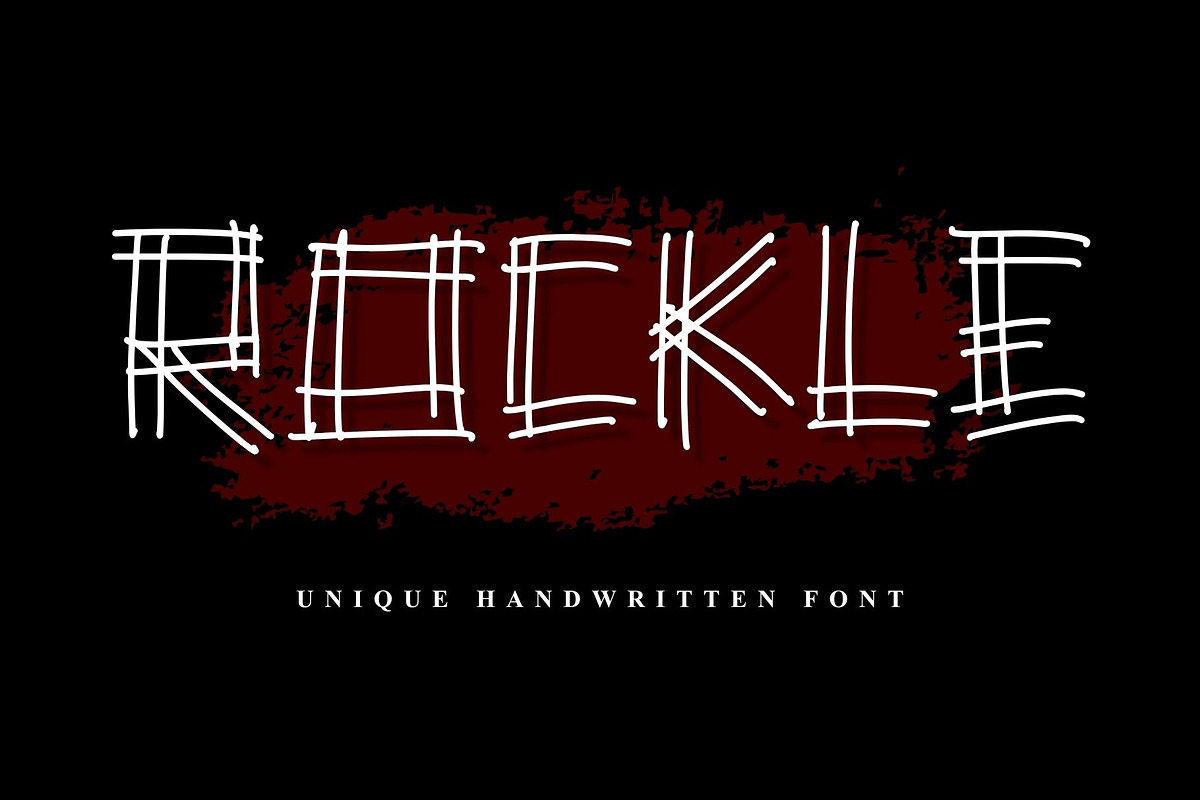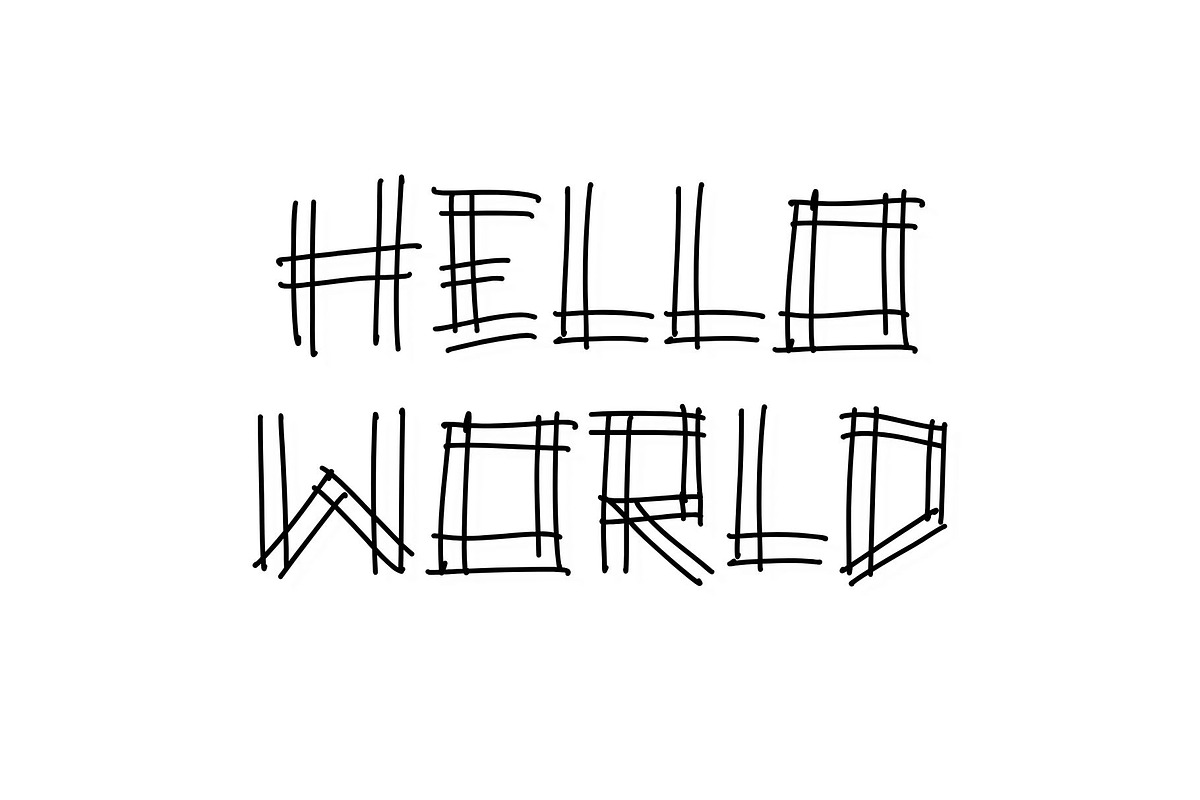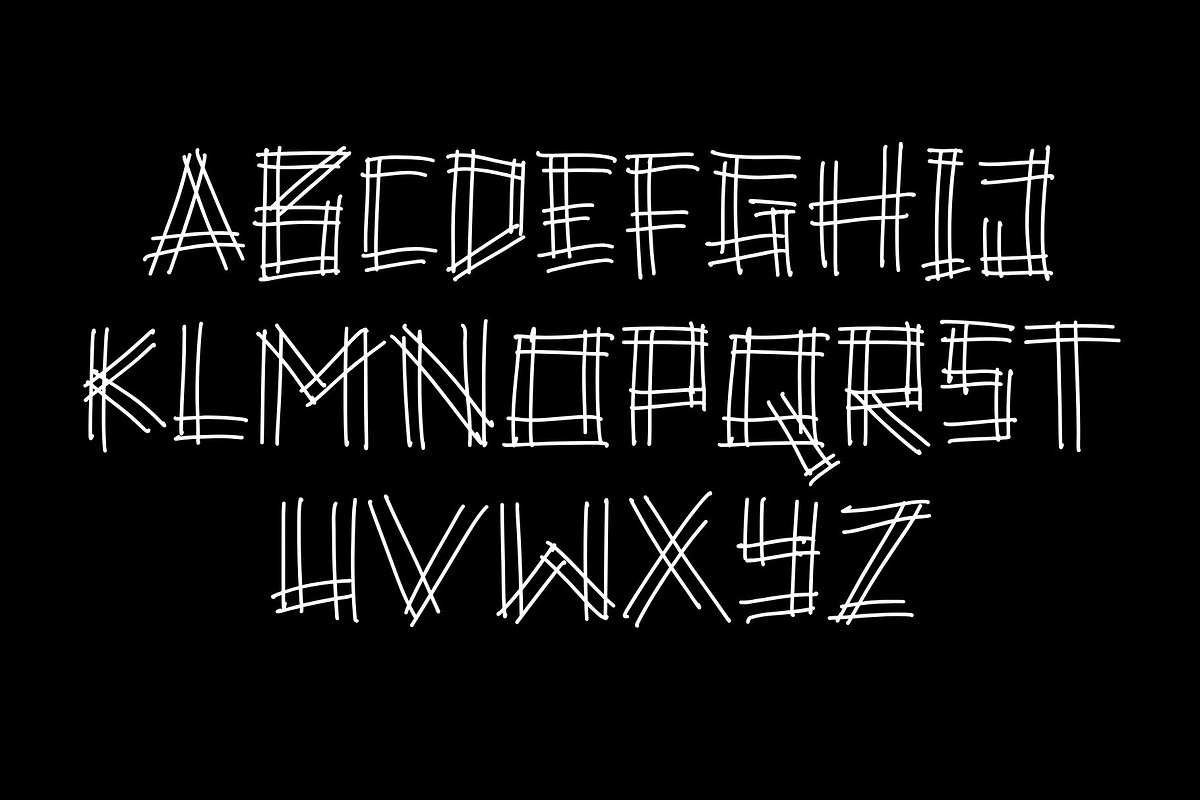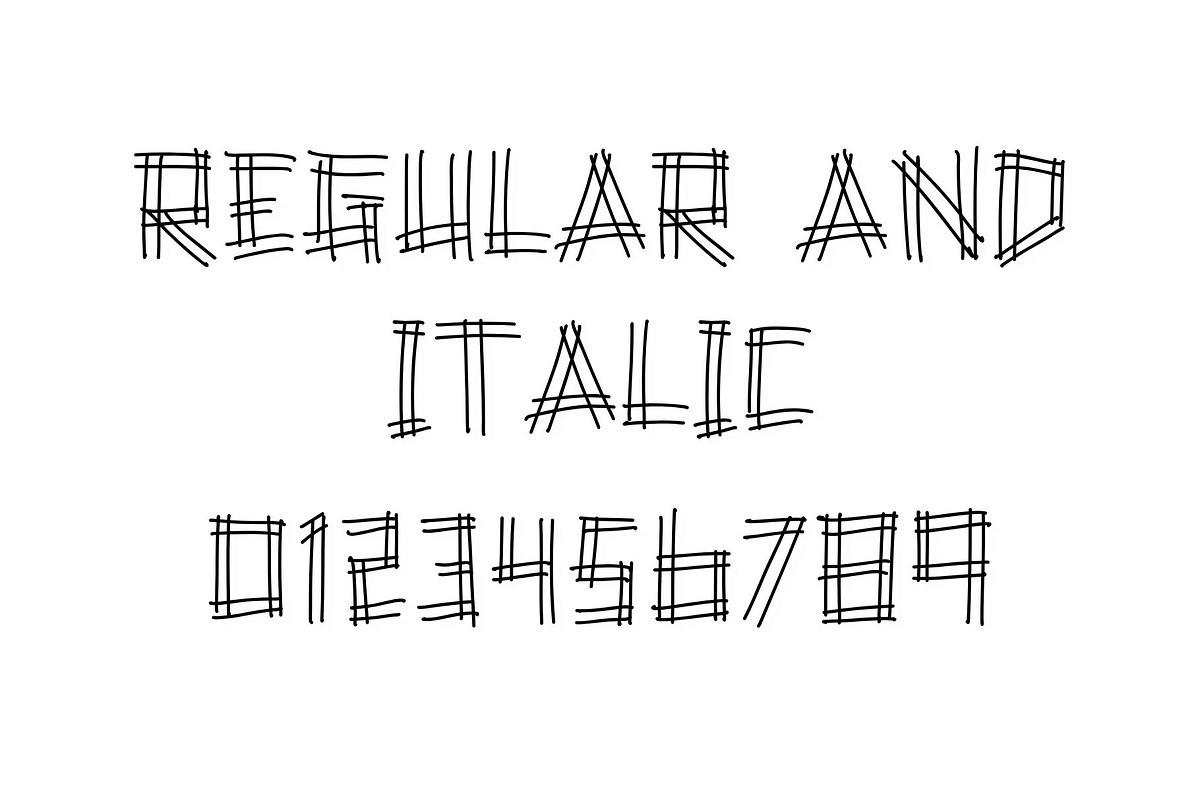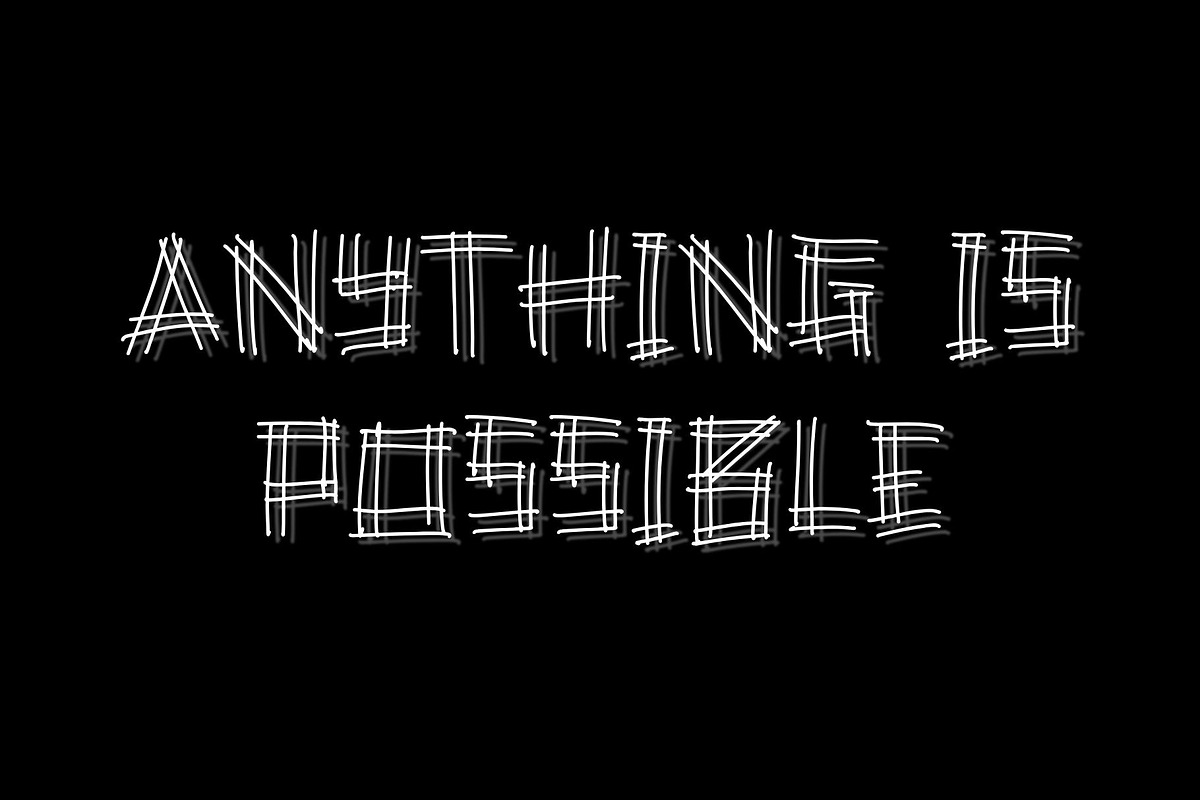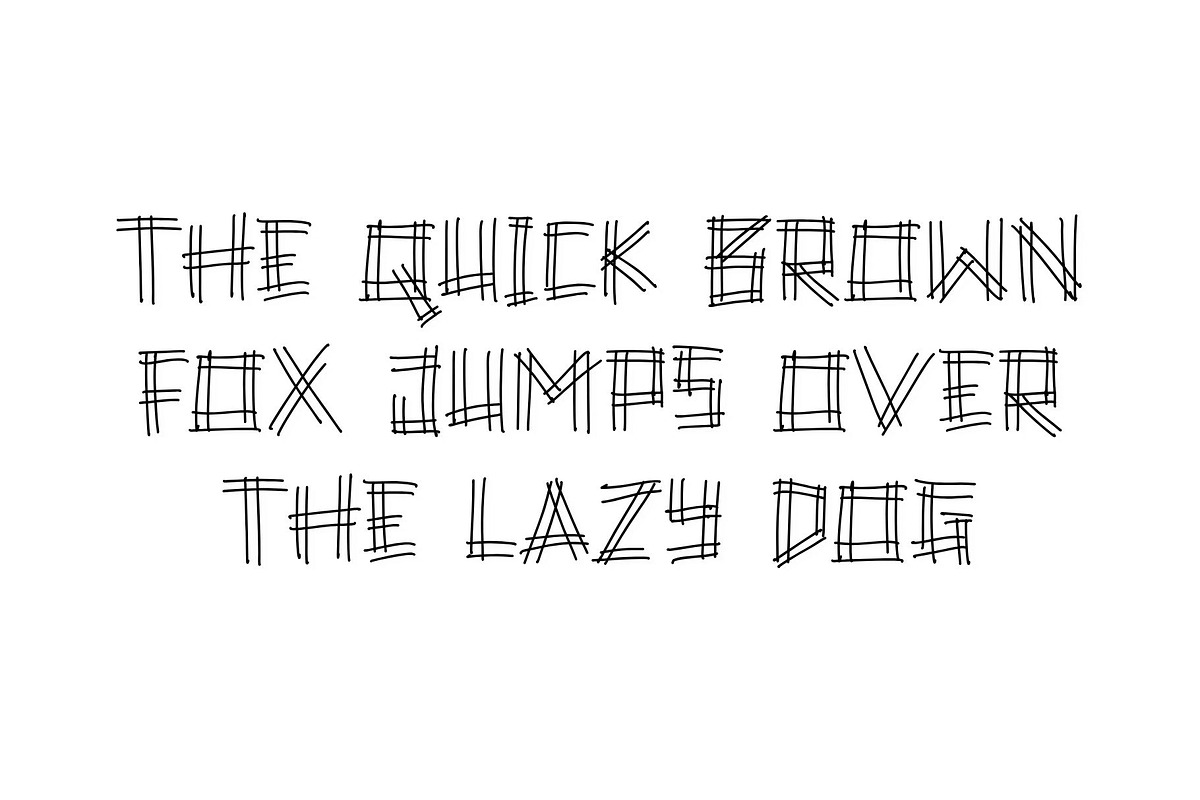
Rockle
ROCKLE is a bold and expressive handwritten font that captures a raw, edgy, and artistic feel. Designed with irregular strokes and a sketch-like structure, this font brings a unique personality that stands out in any design. Its rough, hand-drawn appearance makes it perfect for creative projects such as posters, album covers, branding, and social media visuals. ROCKLE delivers a strong visual impact while maintaining a modern and unconventional style, making your text feel more alive and authentic.